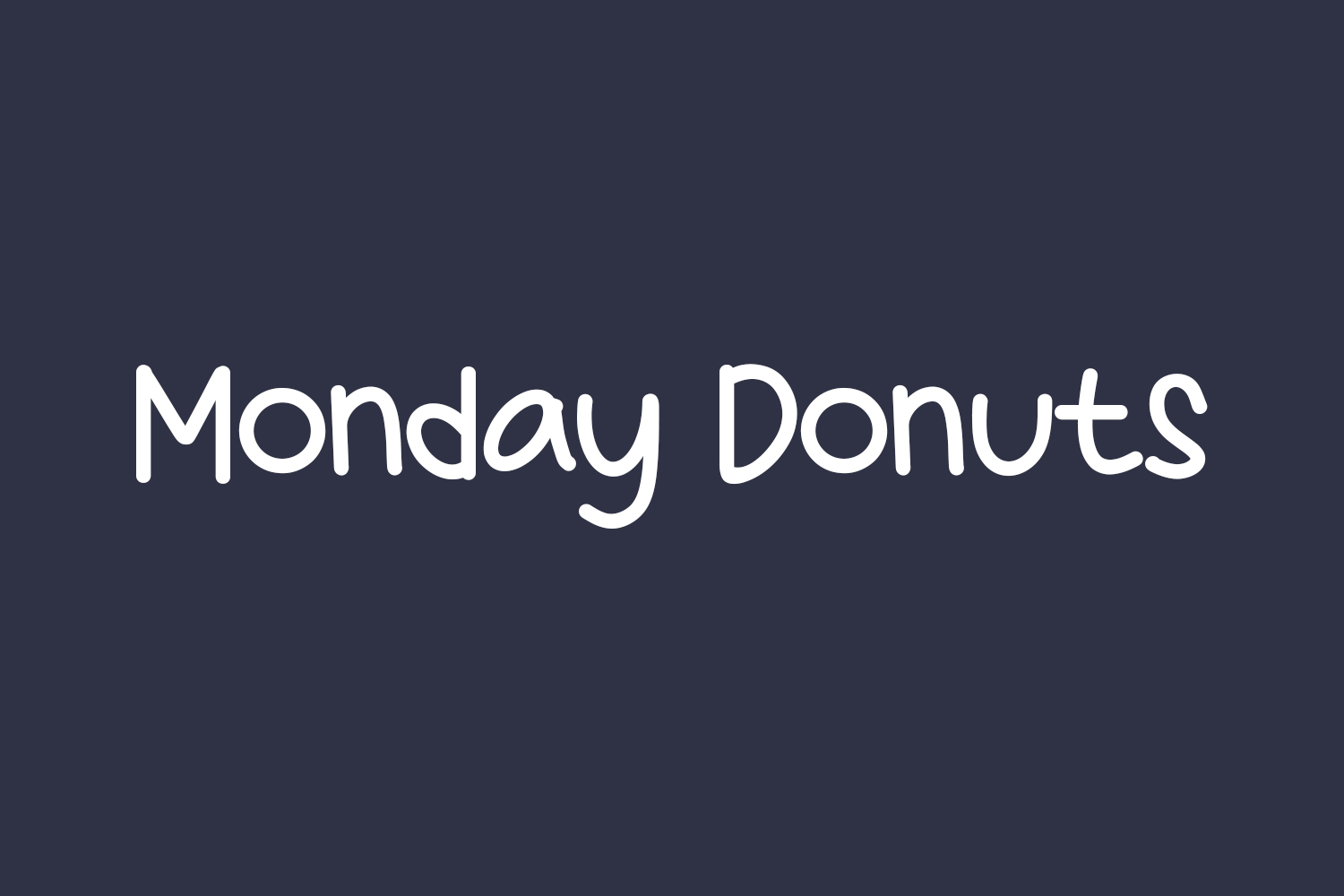
Introducing Monday Donuts Free Font, a contemporary and charming handwritten font, ideal for a variety of projects such as posters, logos, magazines, book covers, banners, and more! Elevate your designs with this delightful font, easily adaptable to a wide range of creative ventures. Incorporate Monday Donuts into your artistic concepts and watch as it beautifully enhances and distinguishes them. Grab this amazing font now and infuse your work with its unique appeal. Monday Donuts Free Font is free for personal or commercial use.